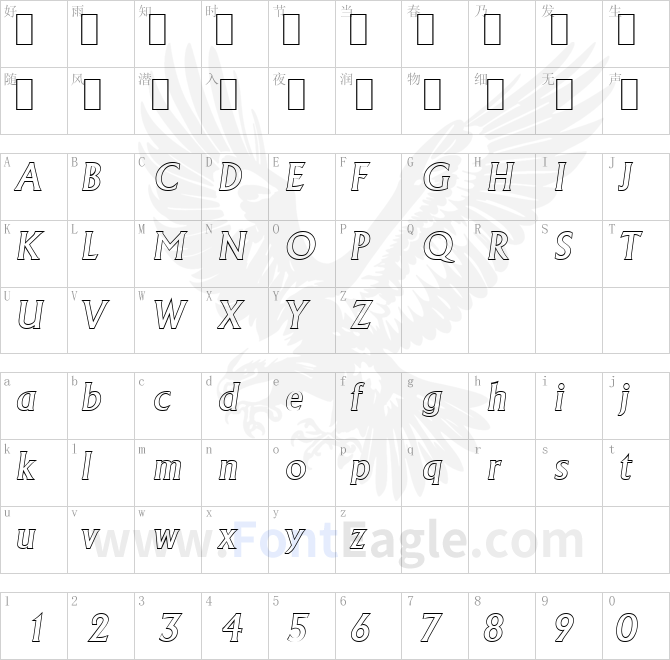
JacobBeckerOutline-Medium-Italic is a great font, widely used in graphic design, single-page menu design, poster design and other fields, and is deeply loved by designers.JacobBeckerOutline-Medium-Italic download.